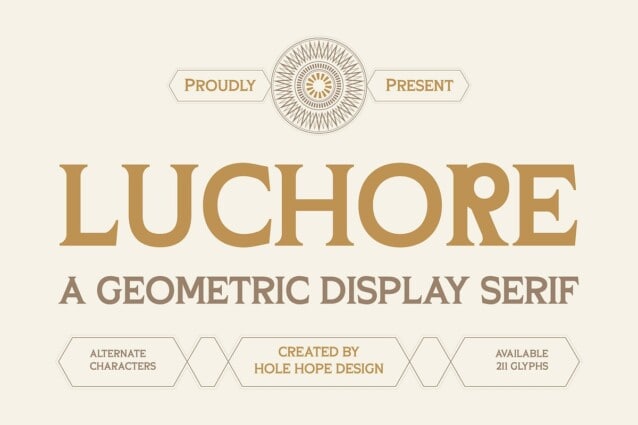
Luchore Font
Luchore Font is a sophisticated modern serif typeface with a refined and luxurious appeal. With its beautifully structured geometric forms and delicate serif details, Luchore exudes both grace and charm, making it perfect for festive invitations. Whether you’re crafting heartfelt Easter greetings or stylish seasonal designs, Luchore’s refined yet playful aesthetic will elevate your projects with a sense of warmth and celebration.